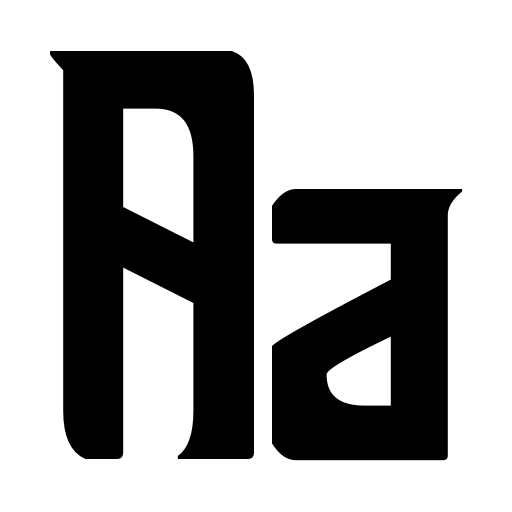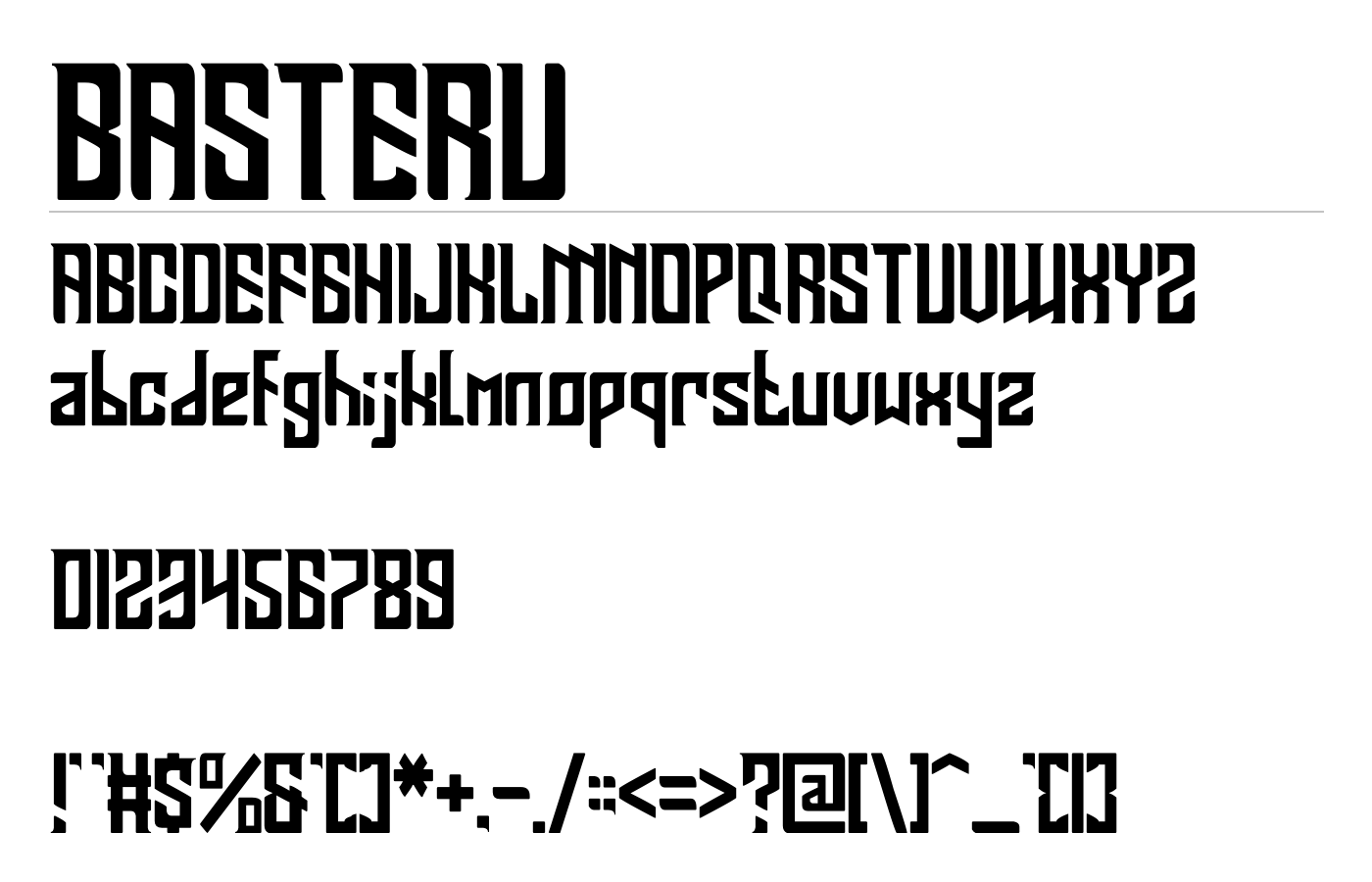
BASTERU is a bold, condensed sans serif font with a striking geometric and angular design that conveys strength and modernity. Its sharp edges and tight spacing give it a futuristic and industrial feel, making it ideal for bold headlines, logos, and branding where a distinctive and edgy look is desired. This font works best in contexts that require a strong visual impact and a sense of innovation or tech-forward style.
BASTERU Font
About BASTERU Font
| Font family | BASTERU Font |
| Designer | Adhi Setya |